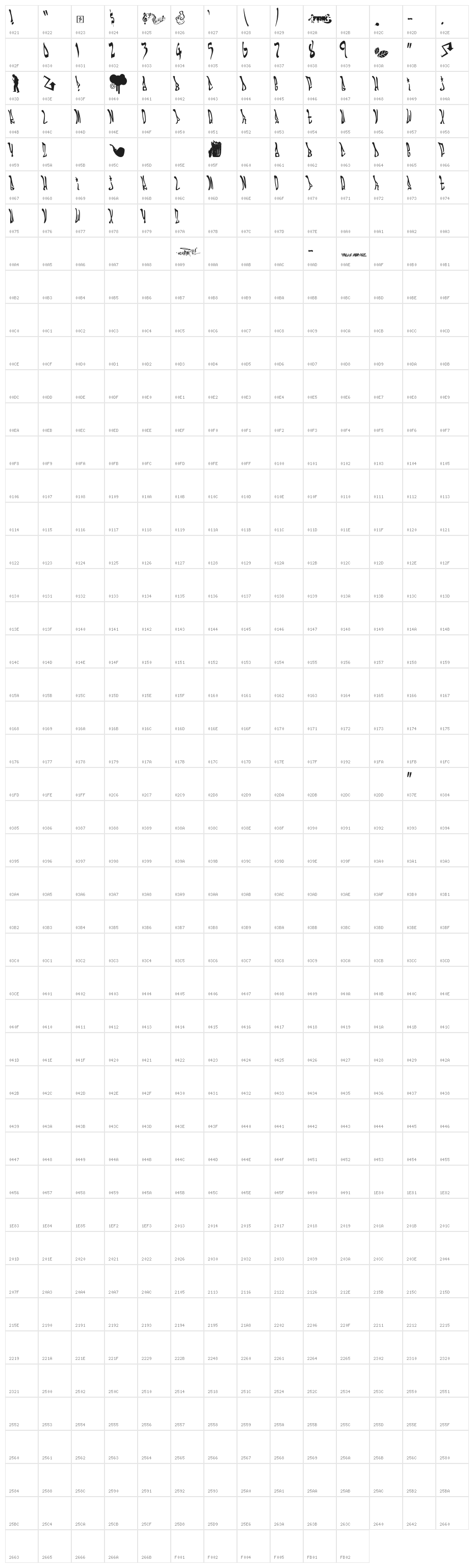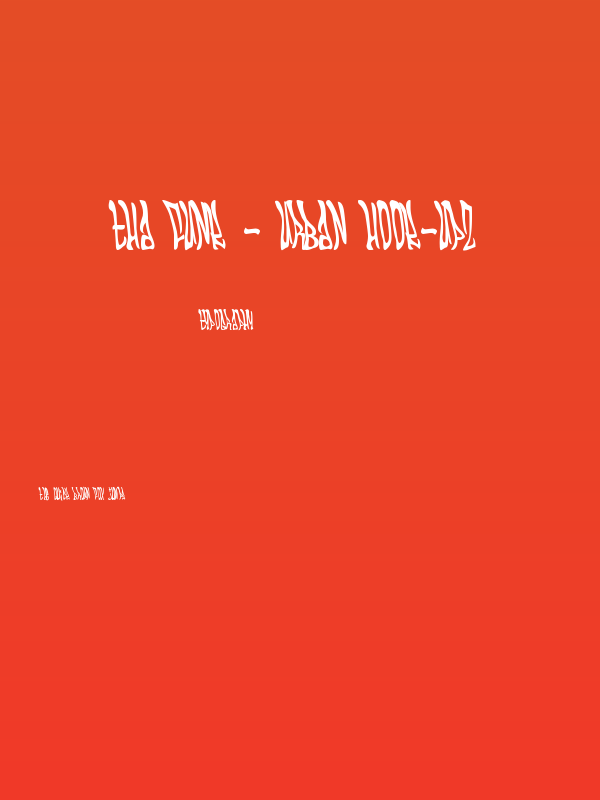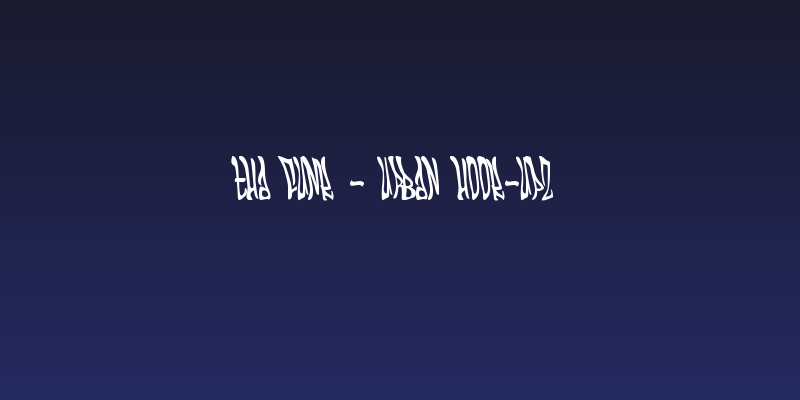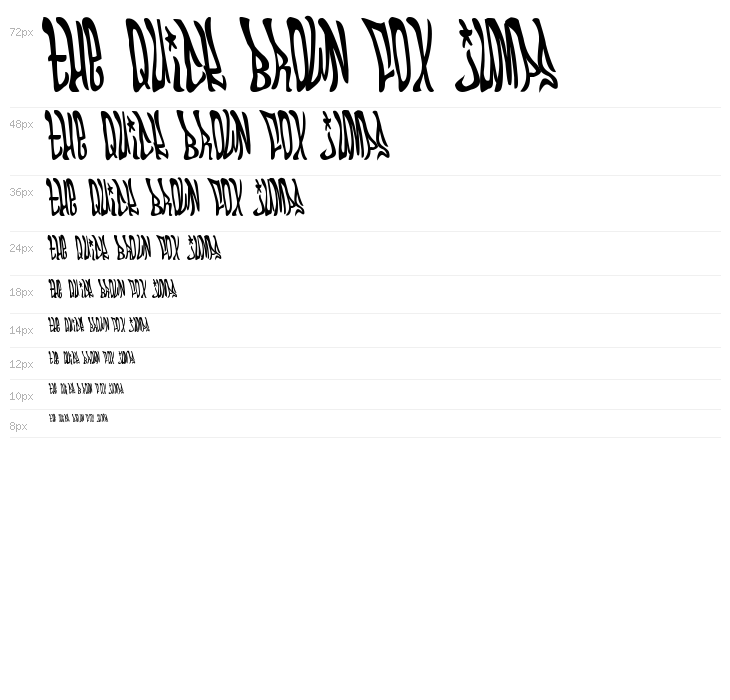
THA FUNK - URBAN HOOK-UPZ Font
THA FUNK - URBAN HOOK-UPZ Description
This font features a bold, graffiti-inspired style with exaggerated curves and a dynamic, urban aesthetic. The letters are highly stylized, with a flowing, almost liquid appearance that gives them a sense of movement and energy. The uppercase and lowercase letters maintain a consistent design, with sharp angles and elongated forms that create a cohesive look. Numbers and special characters follow the same artistic approach, adding to the font's overall edgy and rebellious vibe. This font is perfect for projects that aim to capture a streetwise, contemporary feel.
| Overall Style | Urban, Graffiti, Modern |
| Use Case | Logos, Posters, Album Covers |
| Proposed Projects | Ideal for street art designs, music album covers, urban-themed posters, and edgy branding projects. |